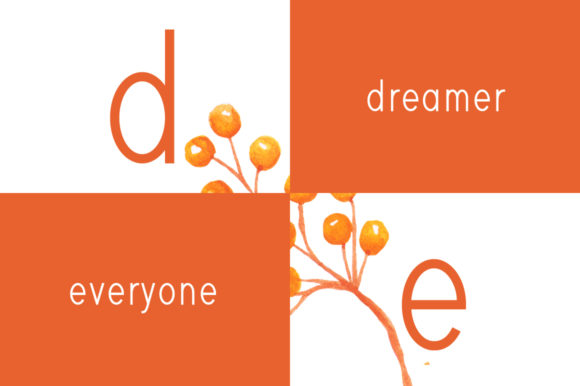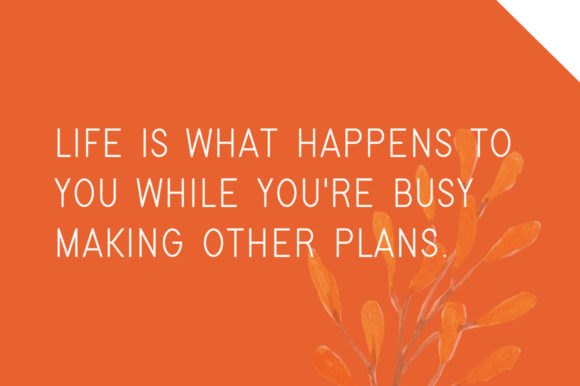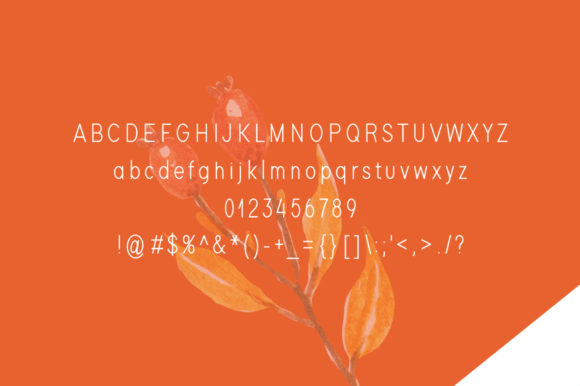
Introduction to Mintic Font
Have you ever been working on a creative project, pouring your heart and soul into every detail, only to feel like something’s missing? That’s when the perfect font can make all the difference. Imagine a font that’s as fresh as a spring morning, with a light and airy feel that elevates your design to new heights.
Enter the Mintic Font, a game-changing design resource that’s sure to make your projects stand out. With its organic feel and high-quality aesthetic, this font is the perfect addition to any design project. Whether you’re working on a logo, brochure, or website, the Mintic Font will add a touch of elegance and sophistication that’s hard to find elsewhere.
Not only is the Mintic Font a valuable asset for designers, but it’s also incredibly versatile. You can use it with a transparent background to create a stunning visual effect, or pair it with other fonts to add depth and interest to your design. And the best part? You can download it for free, making it an accessible and affordable design resource for designers of all levels.
Key Features of Mintic Font
- High-quality, unique design suitable for creative projects, offering a fresh and modern aesthetic.
- Perfect for use in logos, branding, and digital design projects, thanks to its clean and elegant appearance.
Honest Review: Mintic Font
I recently had the chance to work with the Mintic Font for a creative project, and I must say it was a pleasant experience. This free download has quickly become one of my go-to design resources. The high quality of the font is evident, making it perfect for a variety of applications.
What works well with the Mintic Font is its versatility. It’s suitable for both digital and print materials, making it a great addition to any designer’s toolkit. The transparent background also allows for seamless integration with other design elements.
- ✨ High-quality font with a unique aesthetic
- ✨ Suitable for digital and print materials
However, I did encounter some limitations while working with the Mintic Font. The font doesn’t have a wide range of weights or styles, which can be a drawback for designers who require more flexibility. Additionally, the font may not be suitable for large-scale text.
Overall, I’m impressed with the Mintic Font and would definitely recommend it to fellow designers. While it may not be perfect, it’s a solid addition to any design library and a great resource for those looking for a high-quality, unique font.
Tips for Getting the Most Out of Mintic Font
Here are some tips for getting the most out of the Mintic Font: 1) Use it on a transparent background to create a modern and sleek design, 2) Experiment with different font sizes and styles to create a unique look, and 3) Pair it with other design elements to create a cohesive design.
The Mintic Font is commonly used in a variety of creative projects, including: 1) Graphic design, 2) Web design, 3) Print design, and 4) Digital art. It is also a great resource for designers who want to create a modern and sophisticated